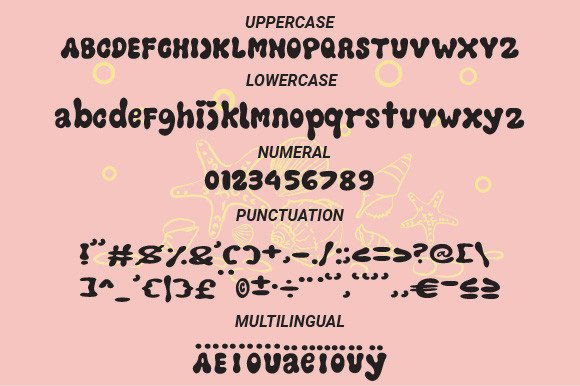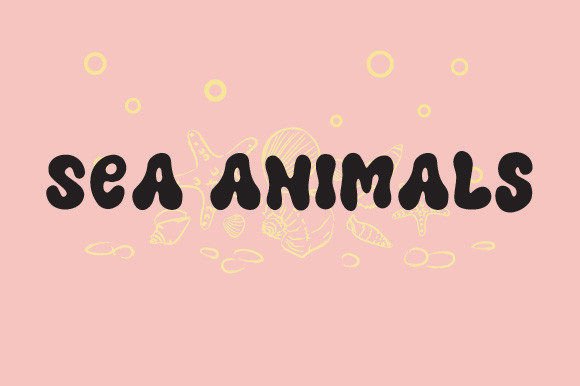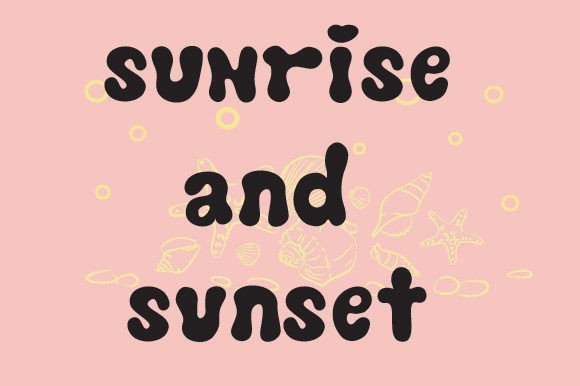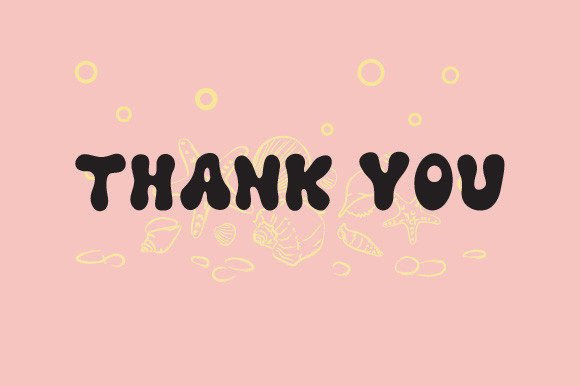
Introduction to Bless Kids Font
Bless Kids is an interesting and thick handwritten font perfect for any creative projects you wish to bring to life.
Key Features of Bless Kids Font